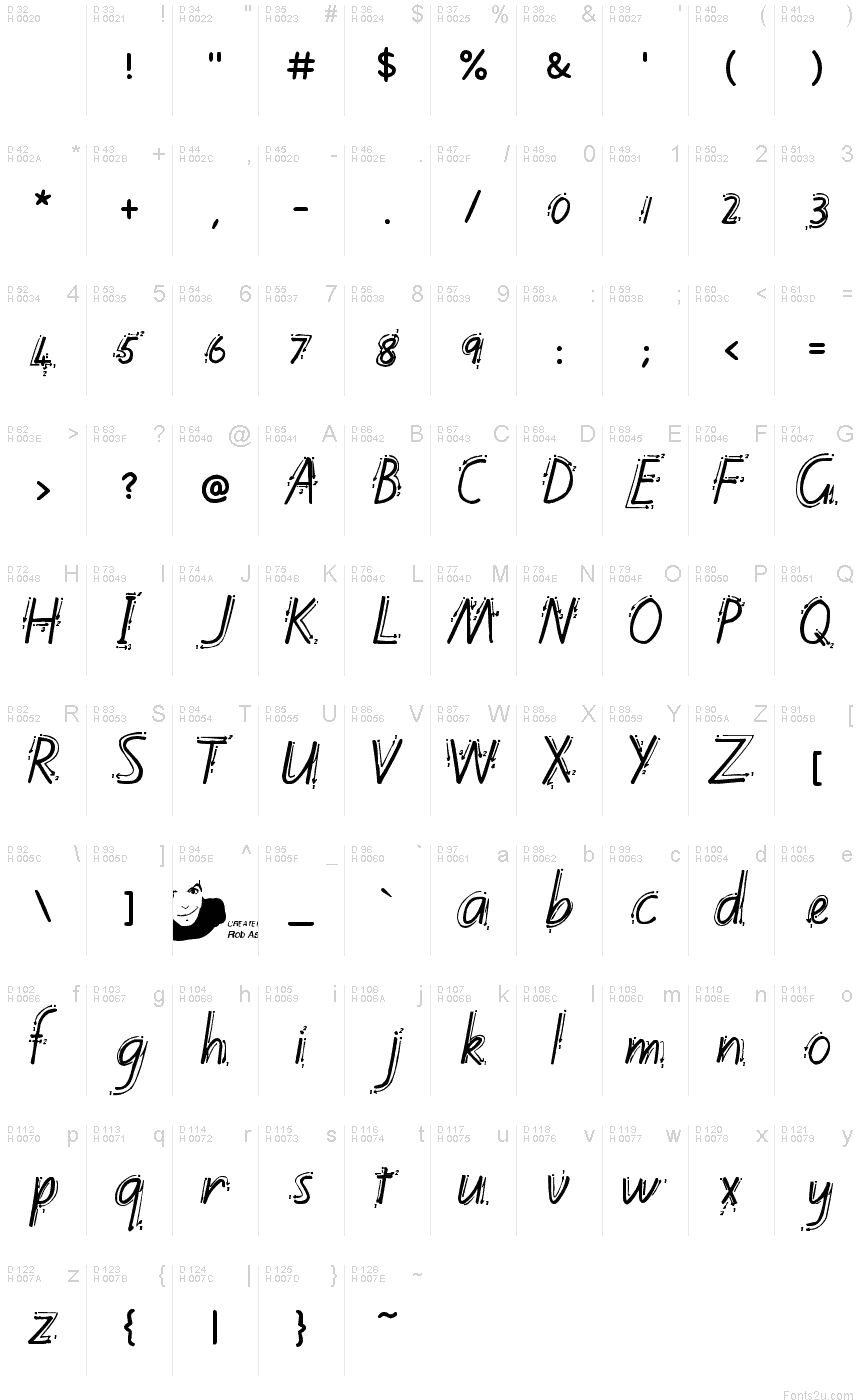
Kiwi School Handwriting with Guides
Based on the style described in the New Zealand Ministry of Education 'Teaching Handwriting' manual, showing basic guides for direction of movement.
Rob Ashcroft